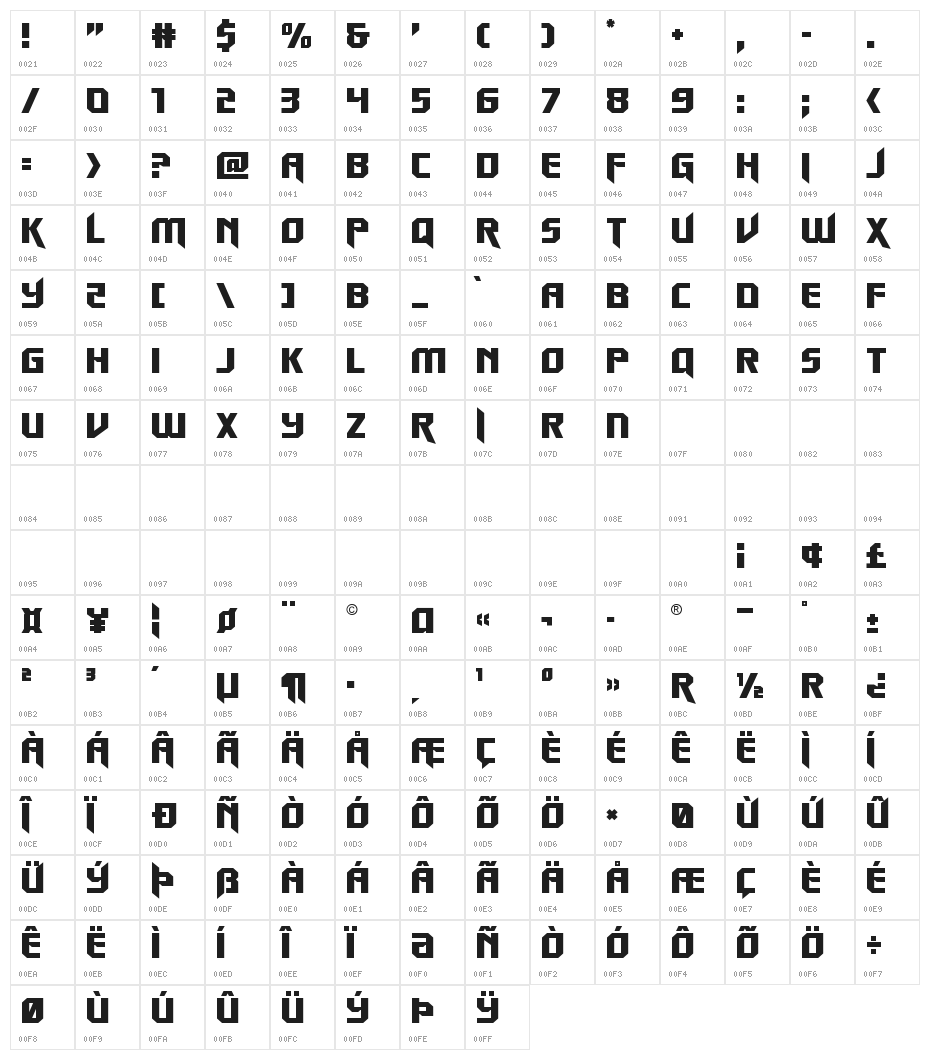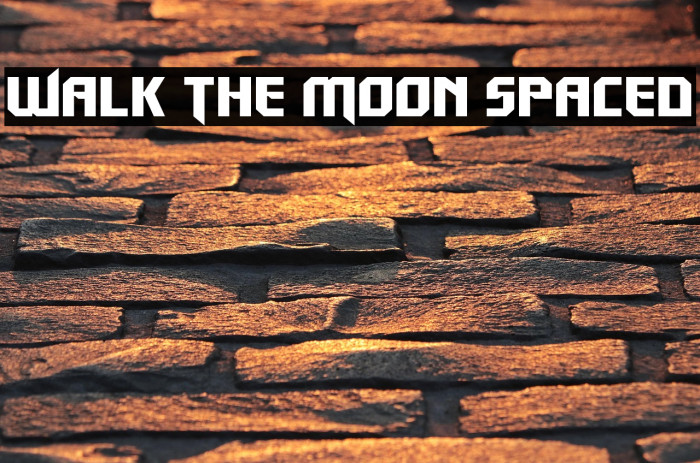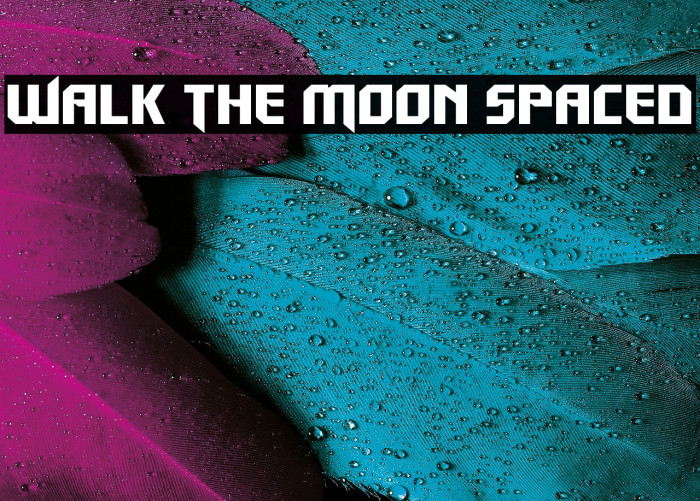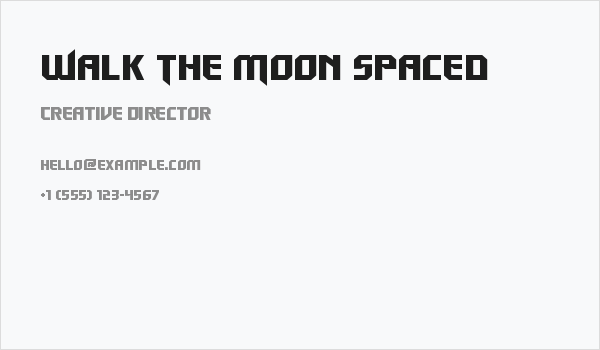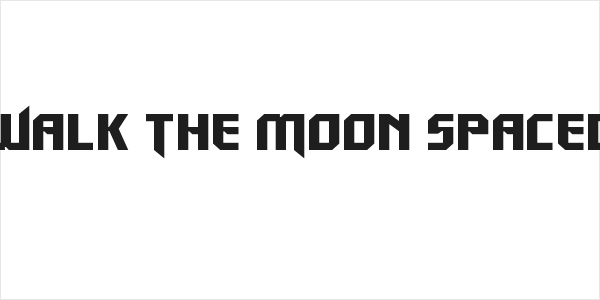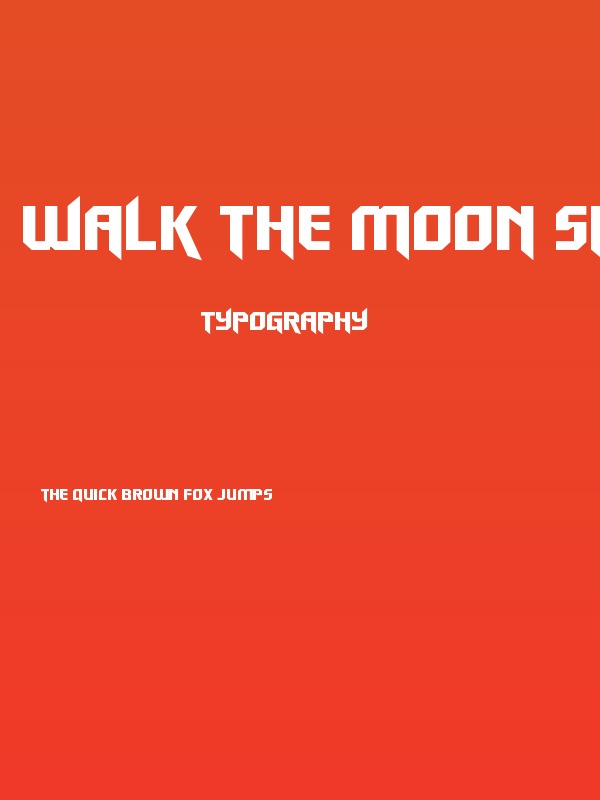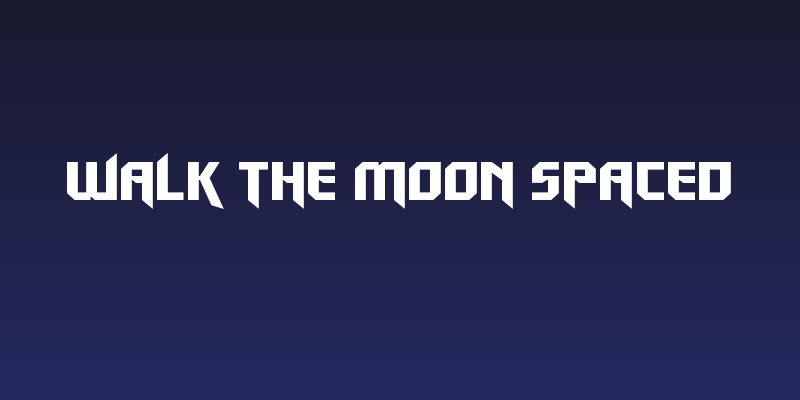
Walk The Moon Spaced Font
Walk The Moon Spaced Description
This font features a bold, geometric design with sharp angles and a futuristic aesthetic. The characters are constructed with a consistent thickness, giving a uniform appearance across all letters and numbers. The angular cuts and edges create a dynamic and edgy look, making it stand out in any design. The uppercase letters are particularly striking, with a blocky, robust form that commands attention. The numerals and special characters maintain the same bold style, ensuring cohesion throughout. This font is ideal for projects that require a modern, tech-inspired feel.